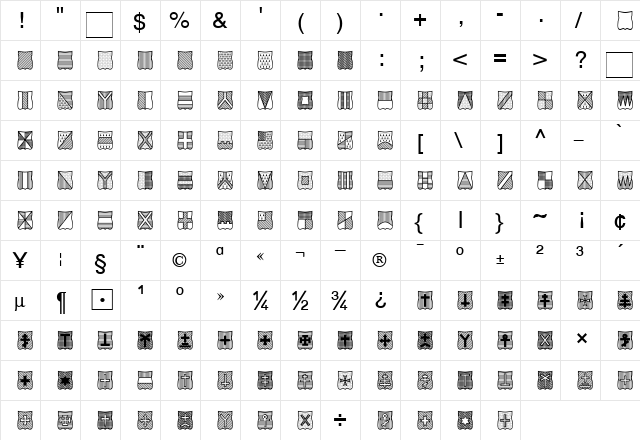
SR Wappen Normal
Design Context for SR Wappen Typeface
SR Wappen is a composed and adaptable typeface that performs quietly and consistently across a wide range of design contexts.